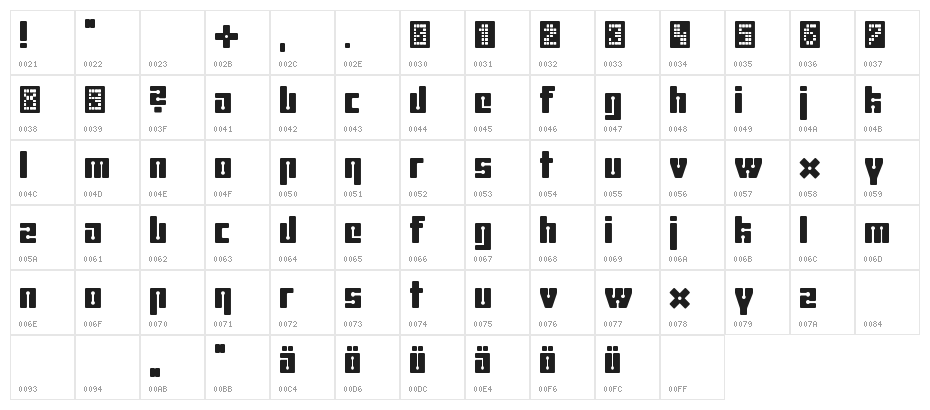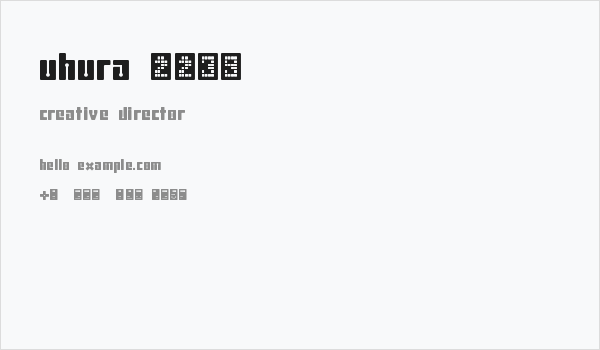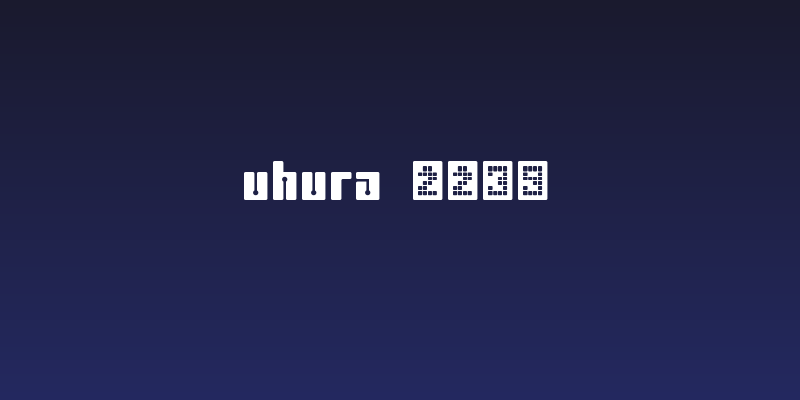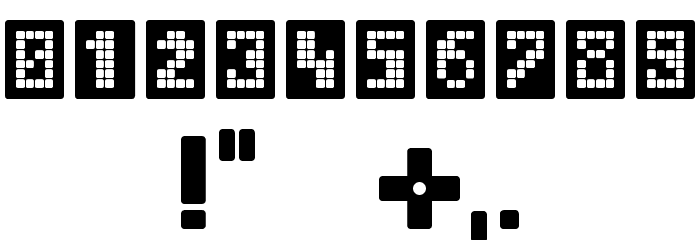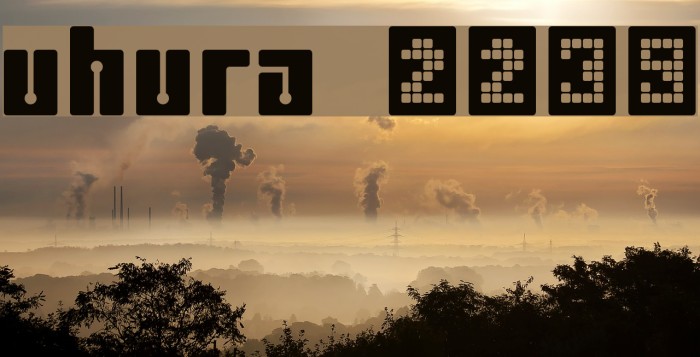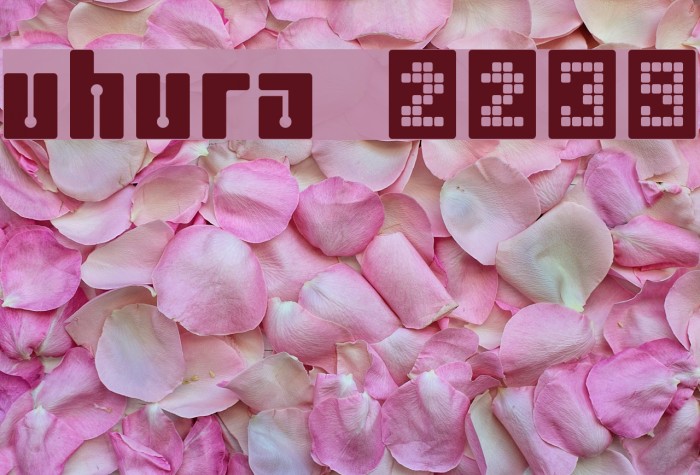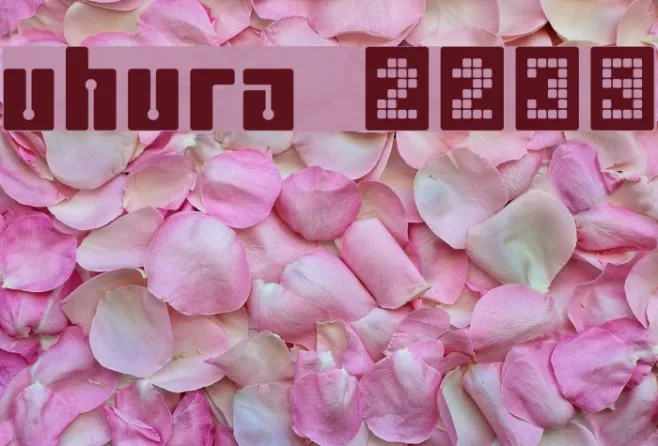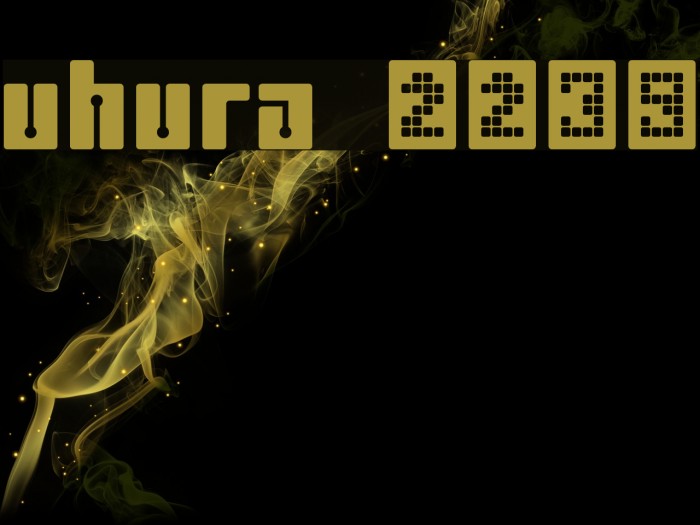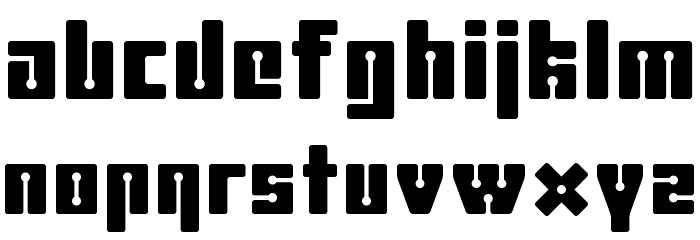
uhura 2239 Font
uhura 2239 Description
This font features a bold and geometric design with a futuristic and digital aesthetic. The characters are constructed with solid, block-like forms and incorporate unique cut-out elements that add a distinctive, tech-inspired look. The uppercase and lowercase letters maintain a consistent style, with the lowercase mirroring the uppercase in size and structure. The numerals are particularly striking, composed of dot matrix patterns that enhance the digital theme. Special characters are minimalistic yet bold, maintaining the overall cohesive style. This font is ideal for projects that require a modern and innovative appearance, such as tech branding, digital interfaces, or sci-fi themed designs.
| Proposed Projects | Ideal for tech branding, digital interfaces, sci-fi themes, and modern design projects. |